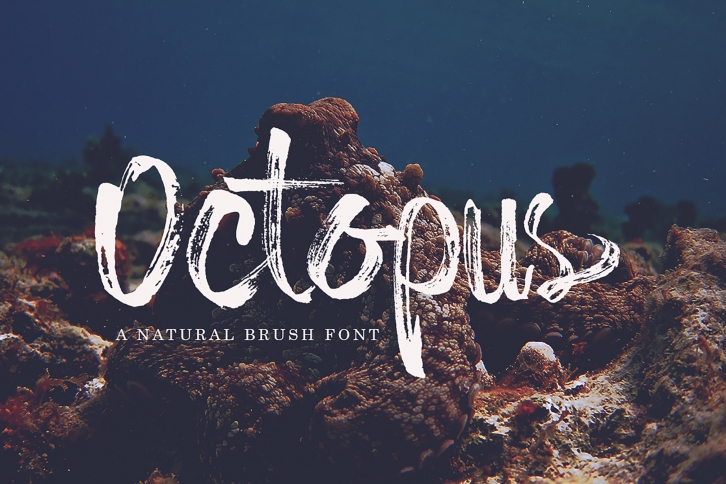
Octopus is a gorgeous font that was realeased on July 14, 2020. The font can be used in many style contexts and design environments. Perfect for invitations, magazines, websites, logos, and more! It was designed by amarlettering and the file size is 14.49 MB. Thanks for checking out this font!